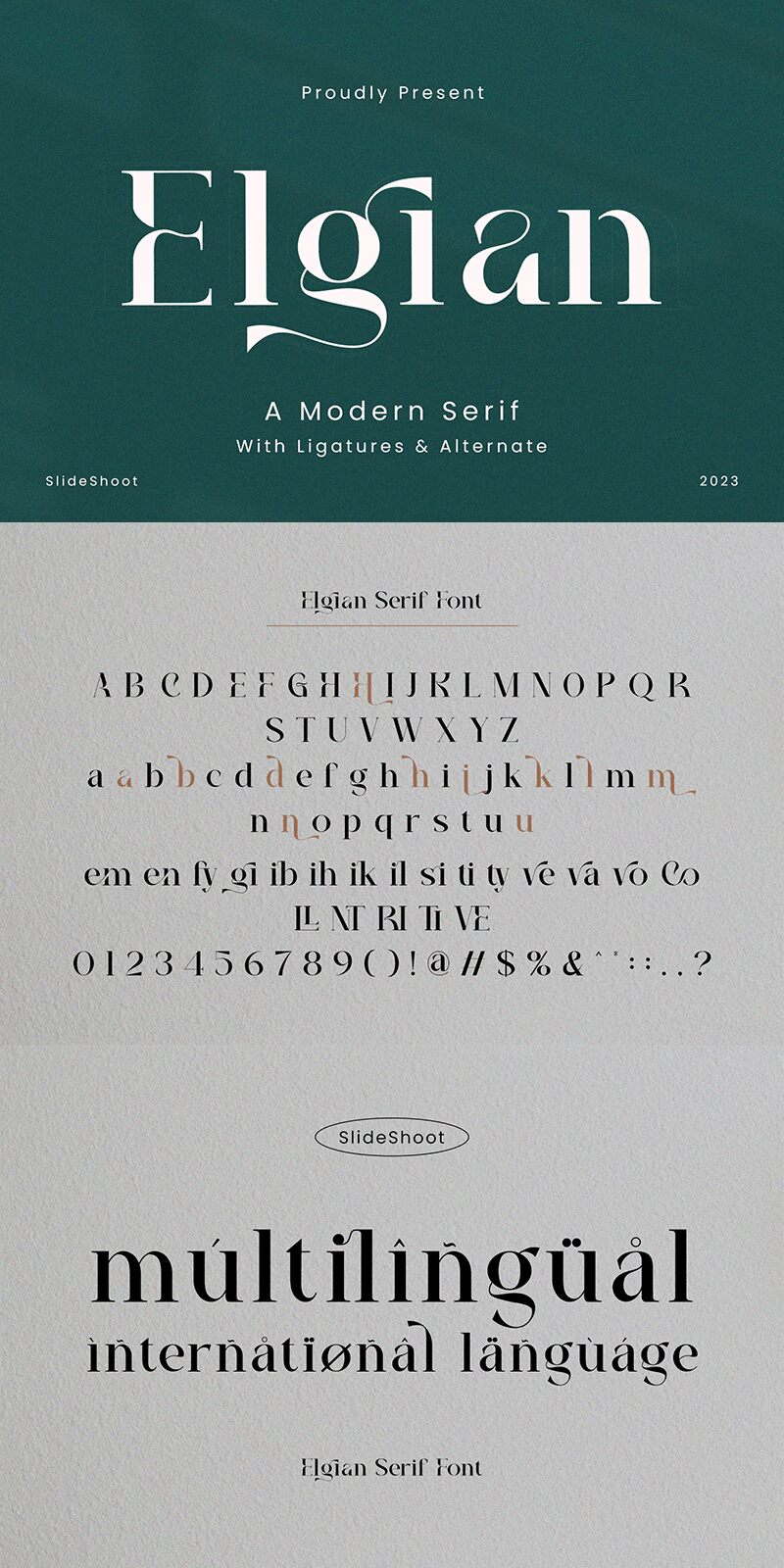
Elgian
Elgian font, designed by Ahmad Riqi, is a modern serif with sophisticated stylized terminals and captivating artistic flair. This elegant typography masterpiece combines the trendy high-contrast style with traditional elements, giving it a classic touch. With letters and numbers that adapt to the display size flawlessly, Elgian has all it takes for a beautiful visual experience.
This free serif font fits branding design in fashion, law firms, or automobile manufacturing. It is also ideal for packaging design like food labels; magazines for cover titles; headlines in newspapers or blogs; logos with use on products like t-shirts apparel; book covers/templates/posters/ and more!